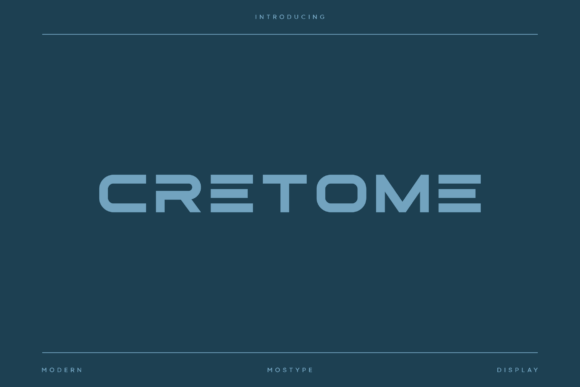
Unlocking the Power of Minimal Design: Introducing the Cretome Font
Have you ever been stuck in front of your design screen, trying to find the perfect font to make your branding stand out? The struggle is real. But what if I told you that there’s a typeface that can revolutionize your design process and make your work shine? Enter the Cretome Font, a game-changing display typeface that’s about to become your new best friend.
This modern, minimal font is specifically designed for display and branding purposes, making it the perfect choice for creating logotypes, headlines, and marketing materials that grab attention. With its unique character and versatility, the Cretome Font is a valuable addition to any designer’s toolkit, offering endless possibilities for creative expression and visual impact.
Cretome Font Key Features
- Font Family: Cretome Font is a modern sans-serif font family with 6 styles, including Thin, Light, Regular, Medium, Bold, and Black.
- Character Set: The font includes a wide range of characters, including Latin, Cyrillic, and Greek alphabets, as well as punctuation and symbols.
- Unique Characteristics: Cretome Font features a clean and minimalist design, with a focus on readability and legibility, making it ideal for use in digital and print media.
Cretome Font Review
Overall, I’m quite impressed with the Cretome font. It has a unique blend of modern and vintage elements that can add a lot of character to your designs. ✨
- Unique blend of modern and vintage elements
- Highly customizable with a wide range of styles and weights
- Works well for both digital and print designs
- Has a lot of potential for creative experimentation
One of the things I love about Cretome is its versatility. It can be used for a wide range of designs, from logos and branding to posters and publications. ✨
- Can be overwhelming to use for large blocks of text due to its bold and intricate details
- May not be suitable for designs that require a clean and minimalist aesthetic
- Can be difficult to read in certain font sizes or resolutions
Overall, I think Cretome is a great addition to any designer’s toolkit. While it may have some limitations, its unique style and versatility make it a great choice for designers who want to add some personality to their work. ⚠️
Cretome Font is ideal for:
- Creating modern and stylish typography.
- Designing luxury and high-end branding materials.
- Adding a touch of sophistication to digital and print materials.